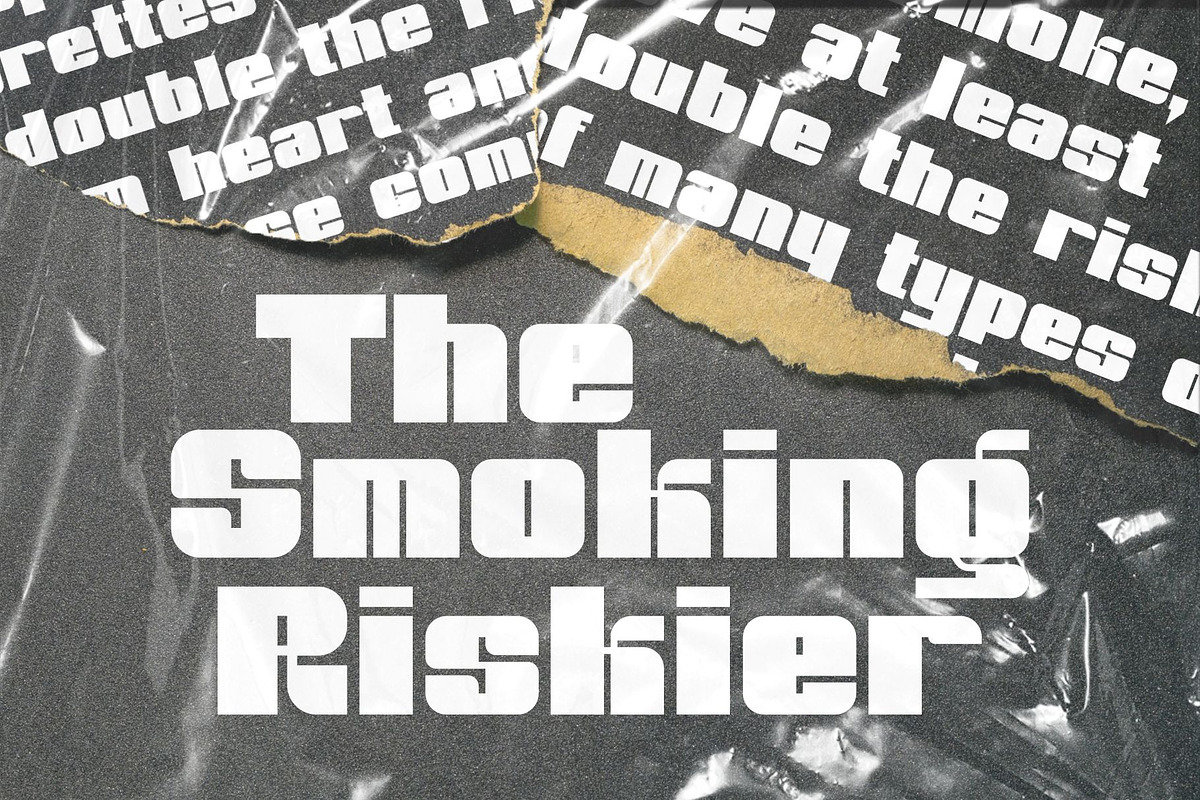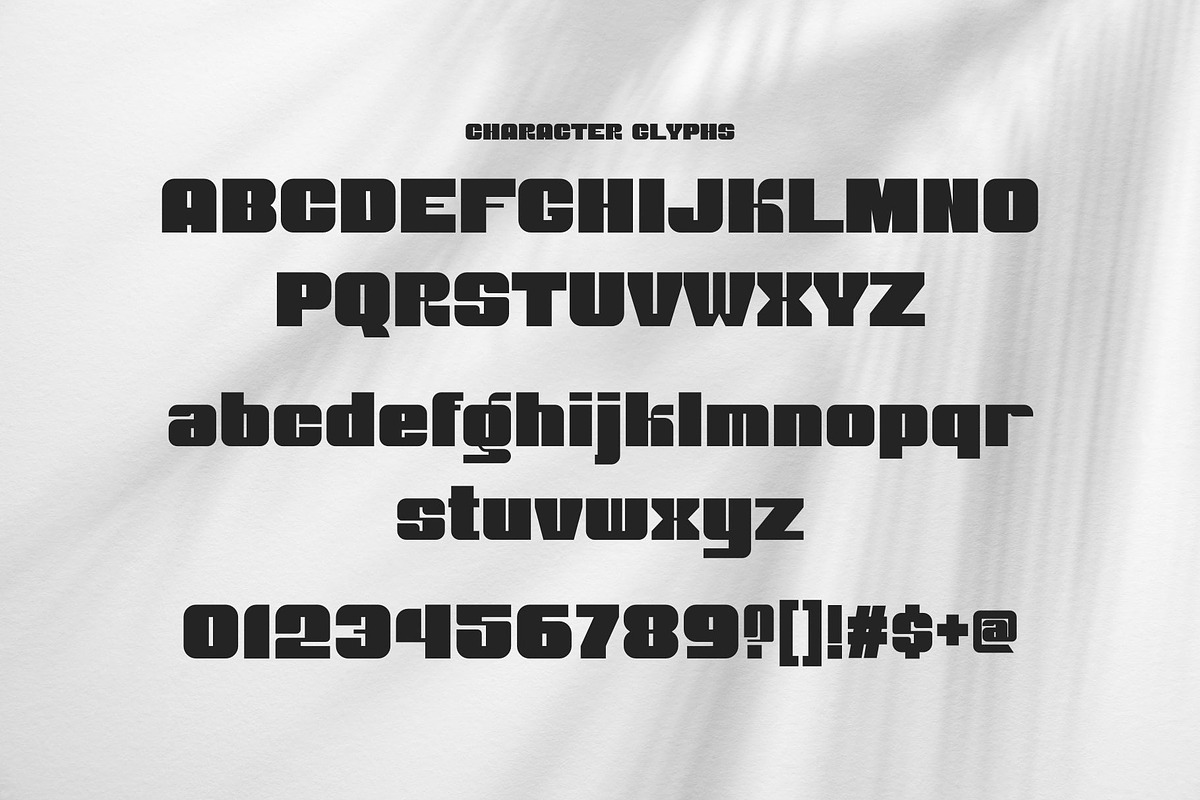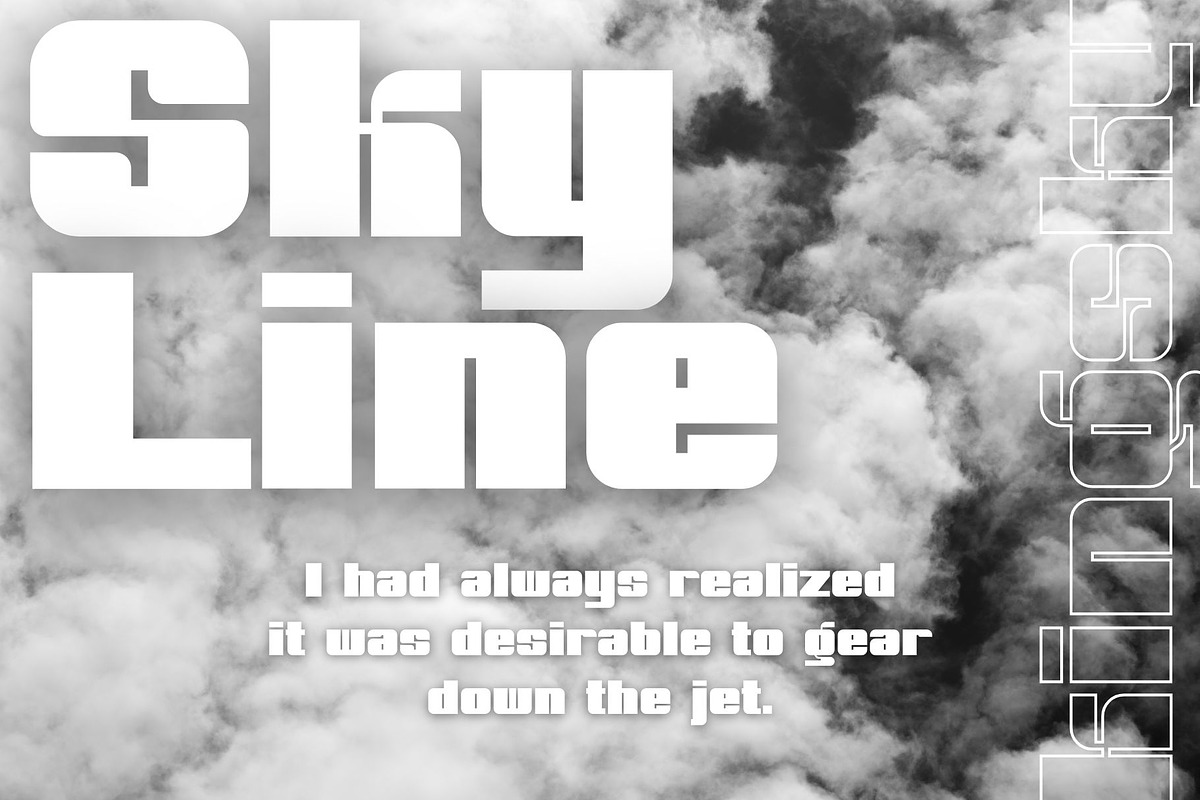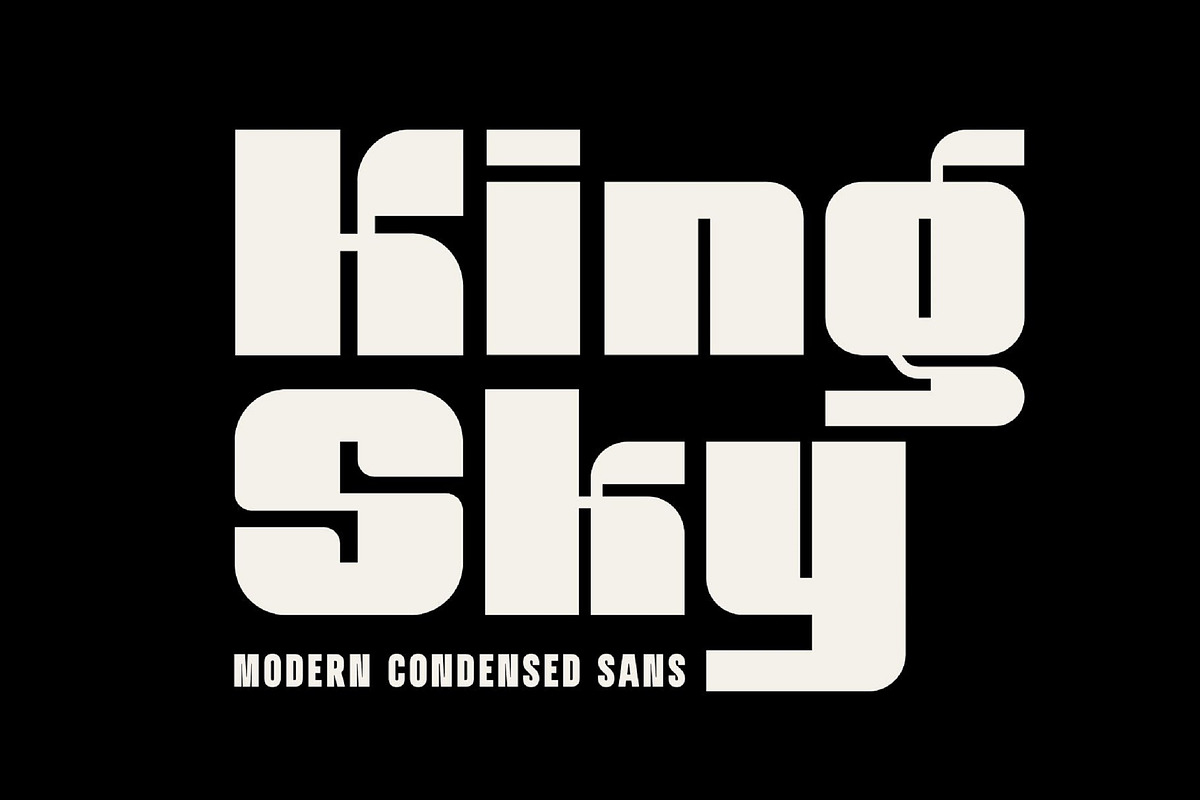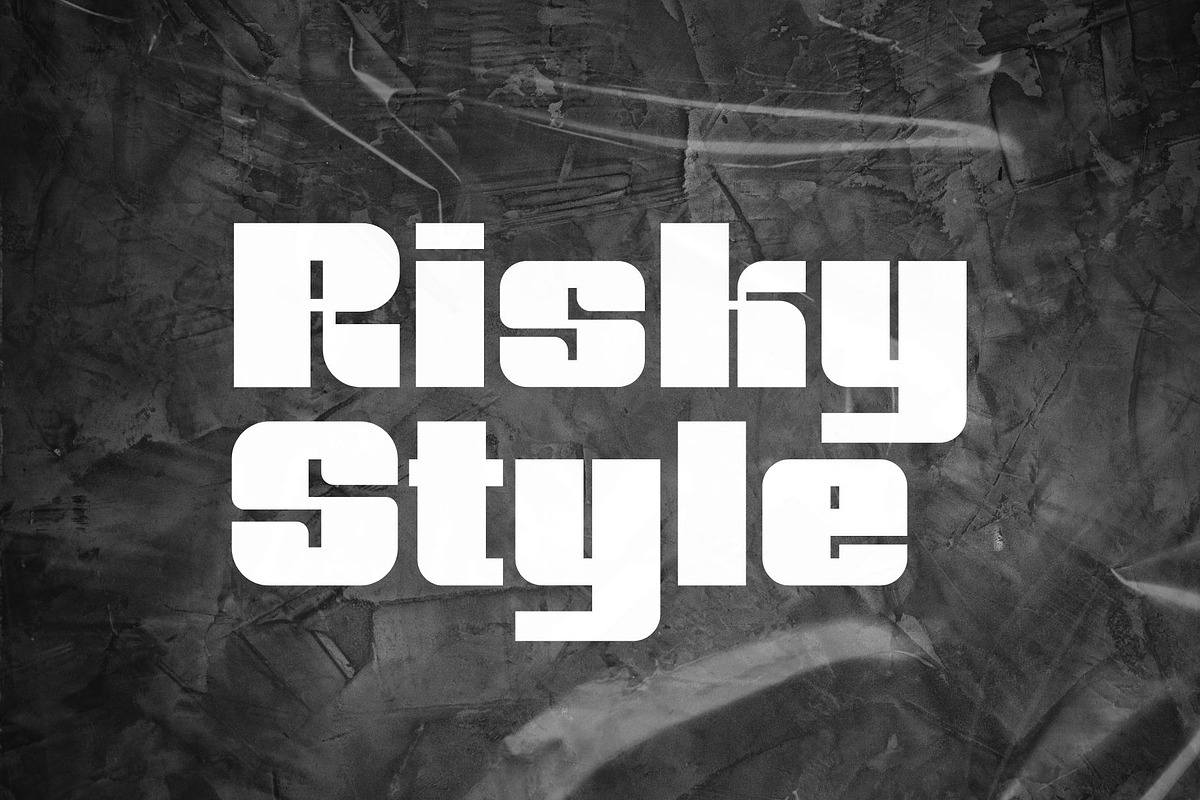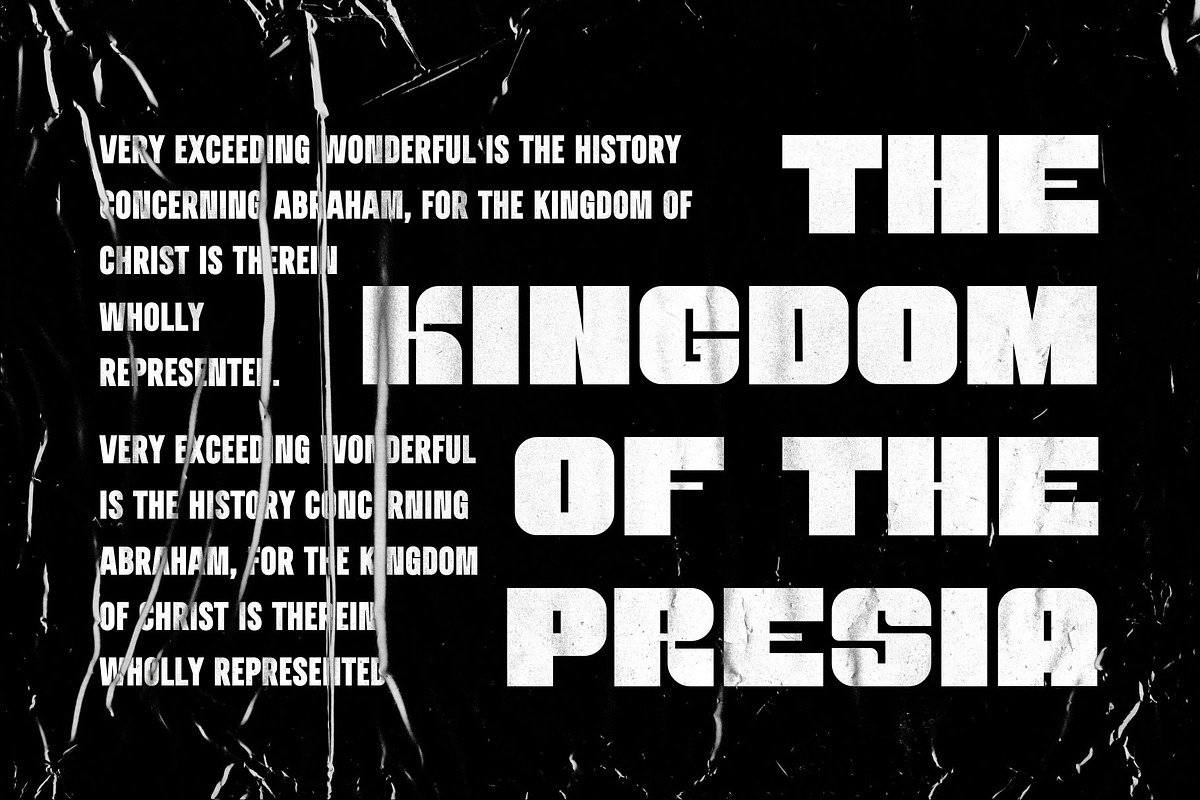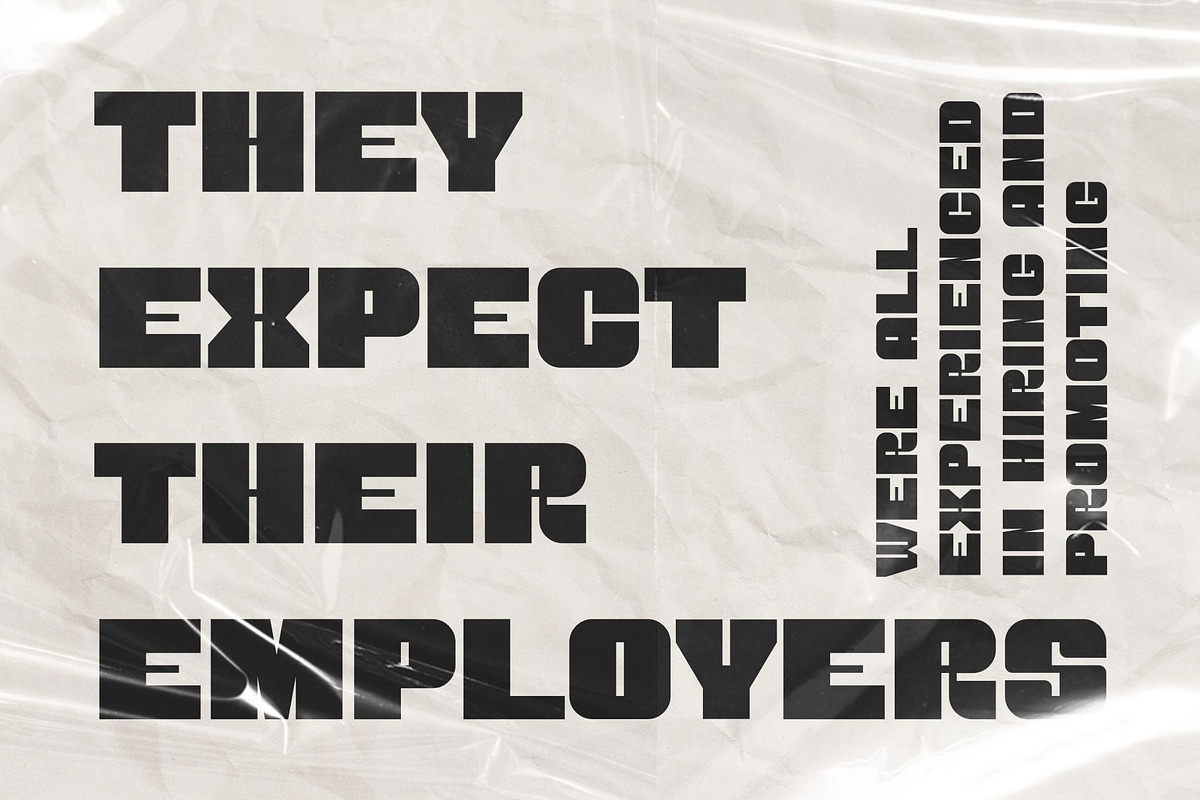
King Sky Modern Sans Serif Font
King Sky Bold Sans Serif Font Typeface inspired by the famous minimalist logo perfect for the purposes of designing templates, brochures, videos, advertising branding, logos, invitation, layout design, elegant crafting, beauty design and other